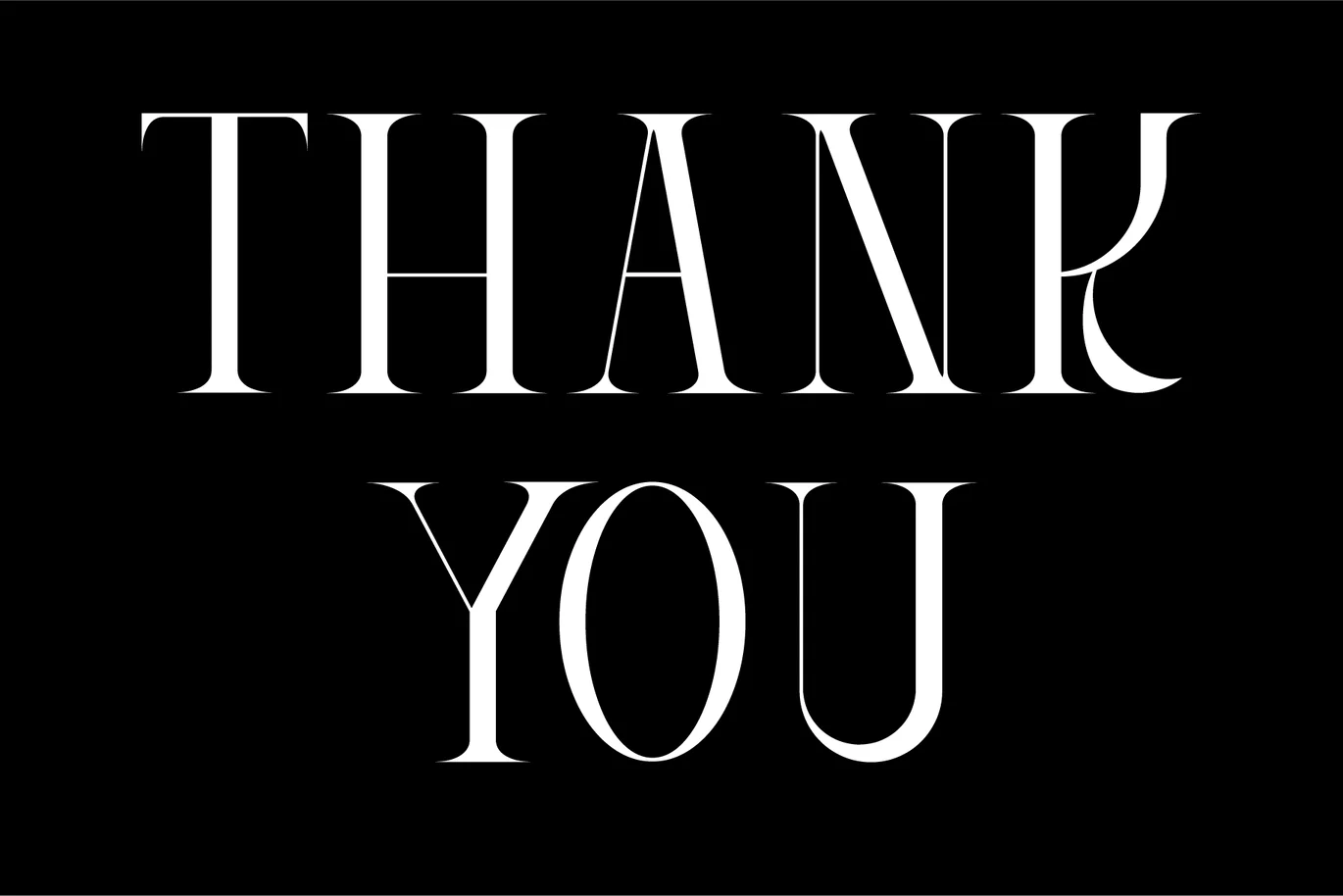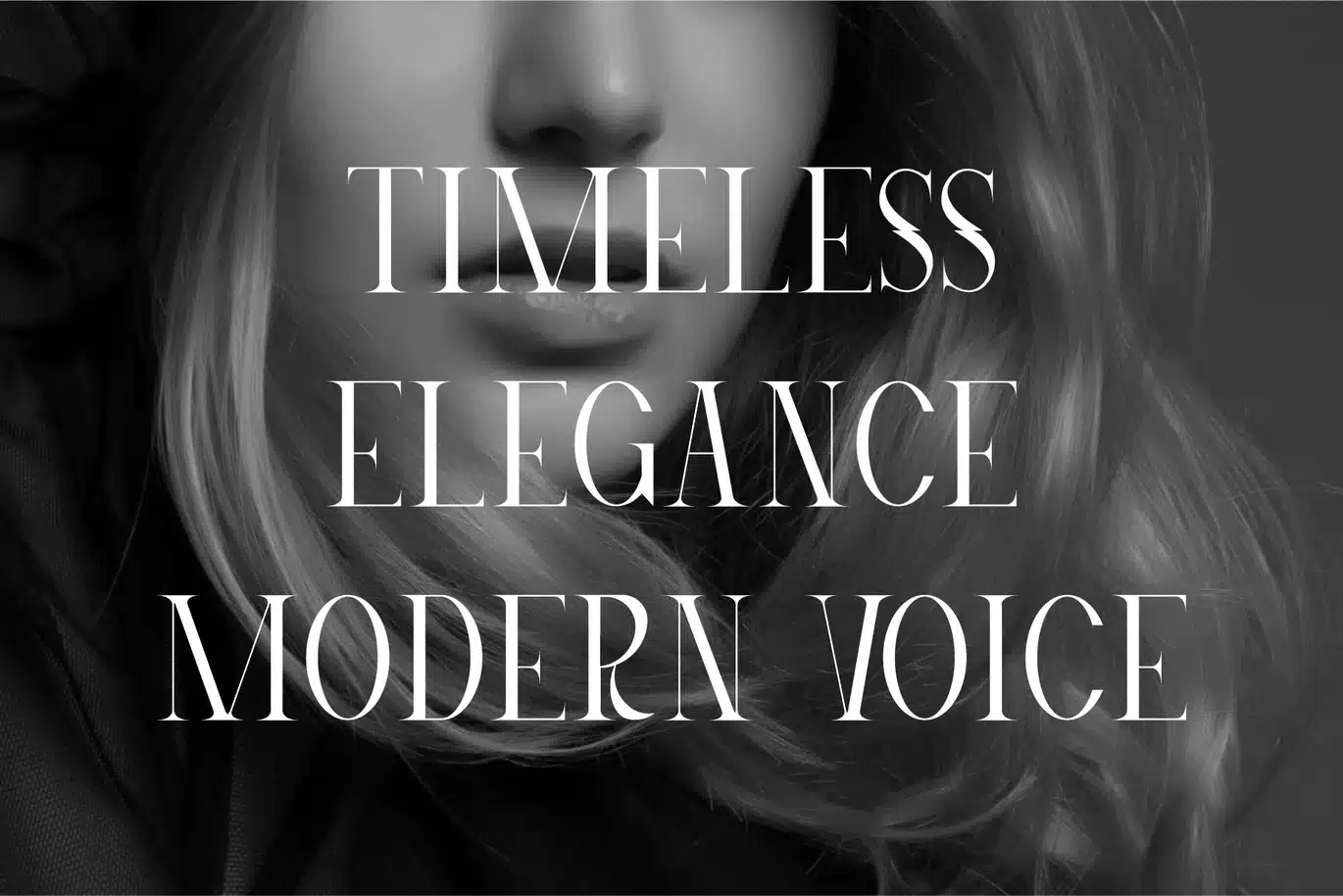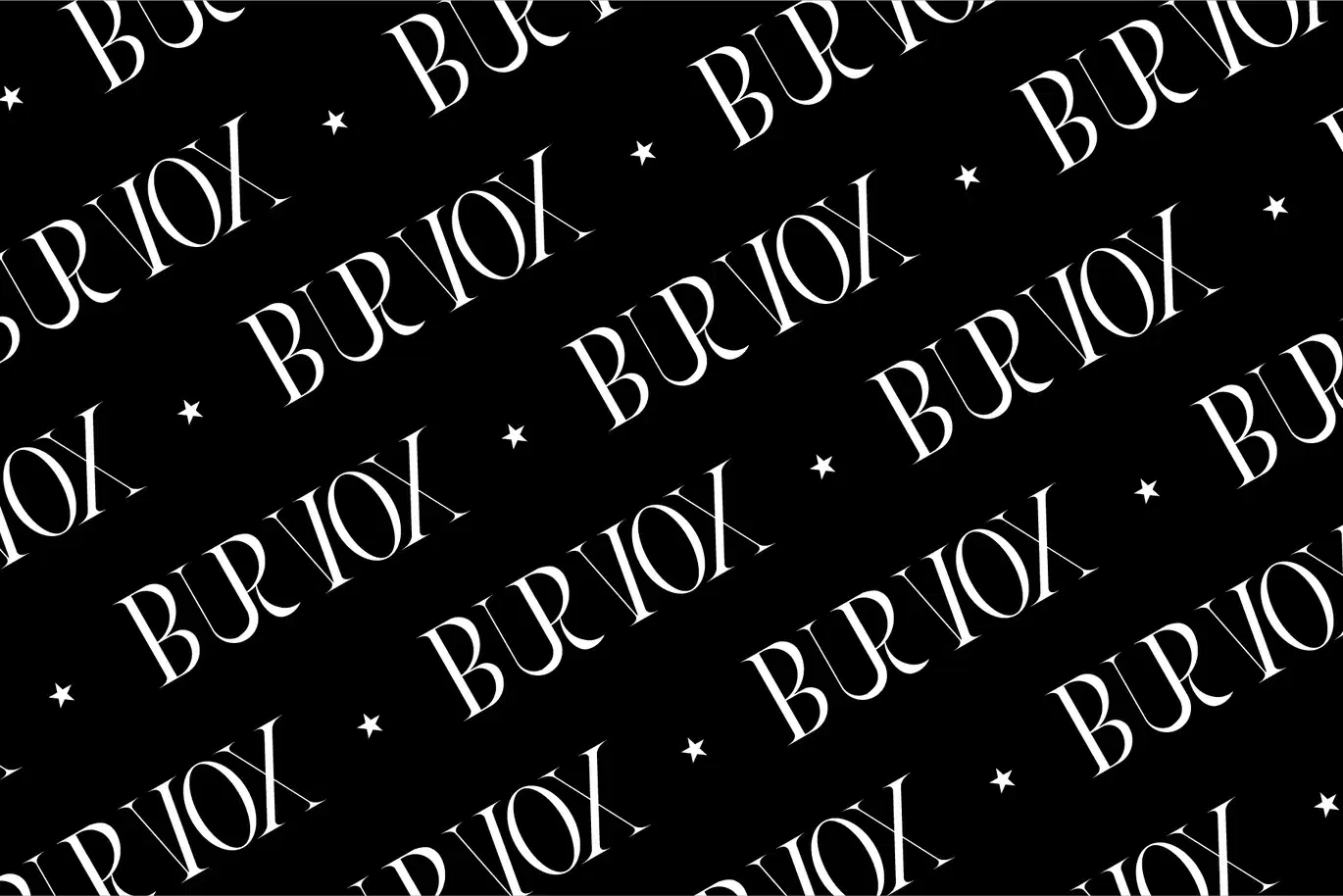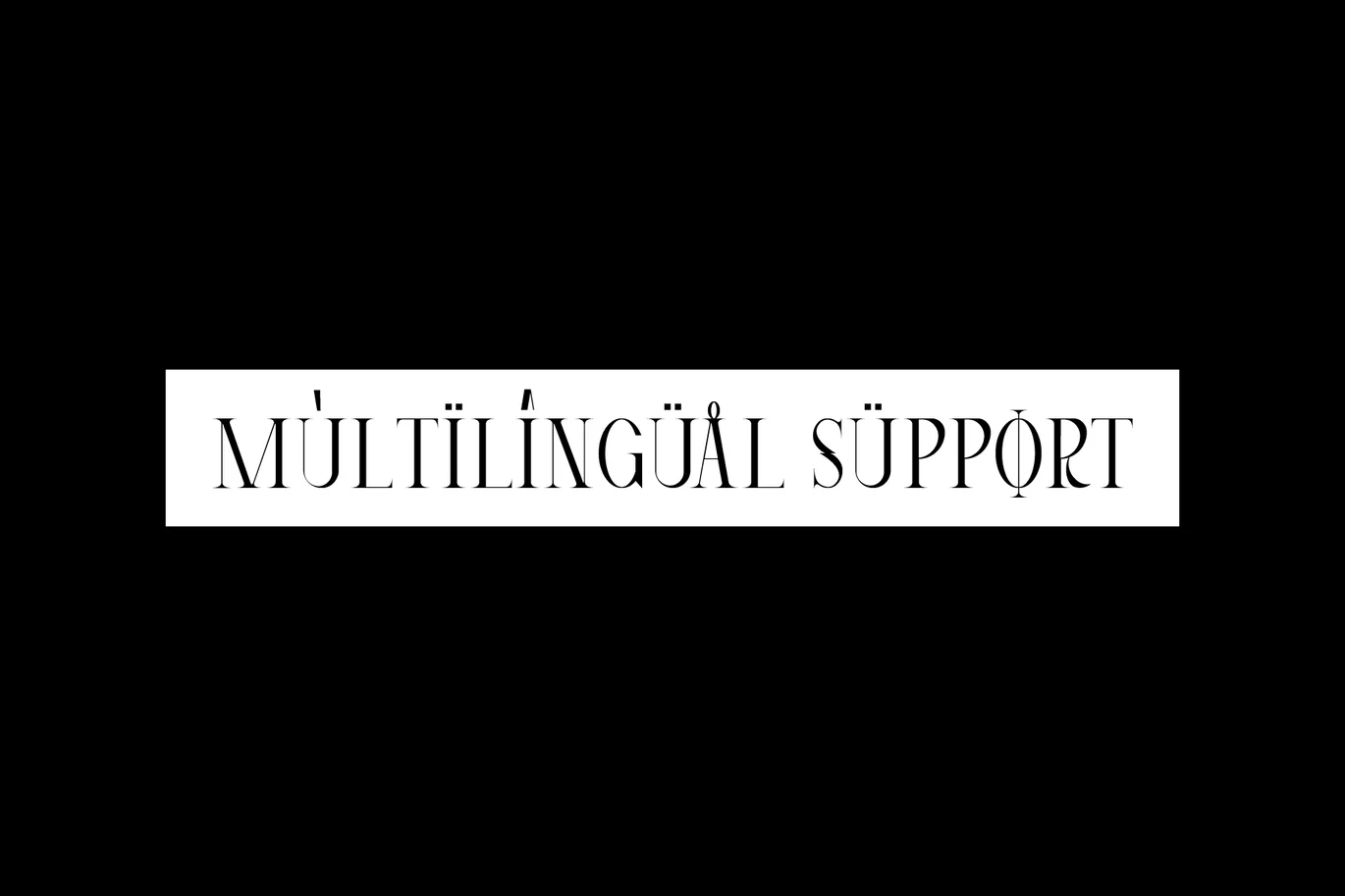
Burvox – Modern Serif Font
Burvox is a modern serif typeface that balances contemporary elegance with readability. Its refined letterforms feature subtle contrasts in stroke weight, giving it a sophisticated yet approachable character. Designed for versatility, Burvox works seamlessly in both display and text contexts, making it ideal for editorial layouts, branding, and digital interfaces.